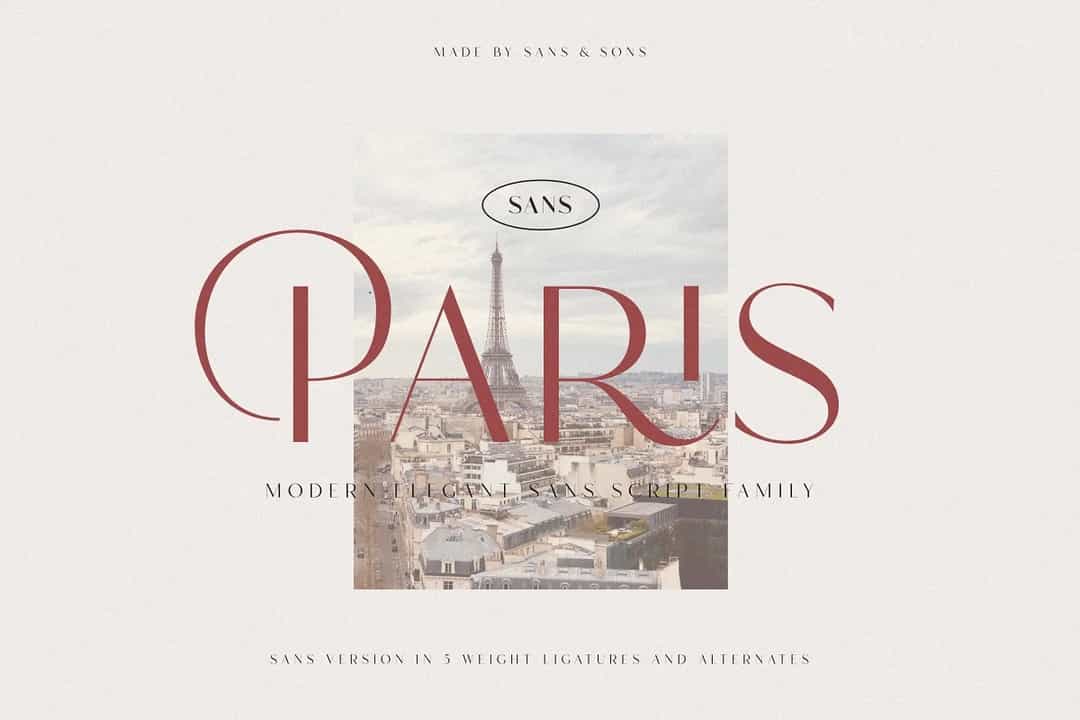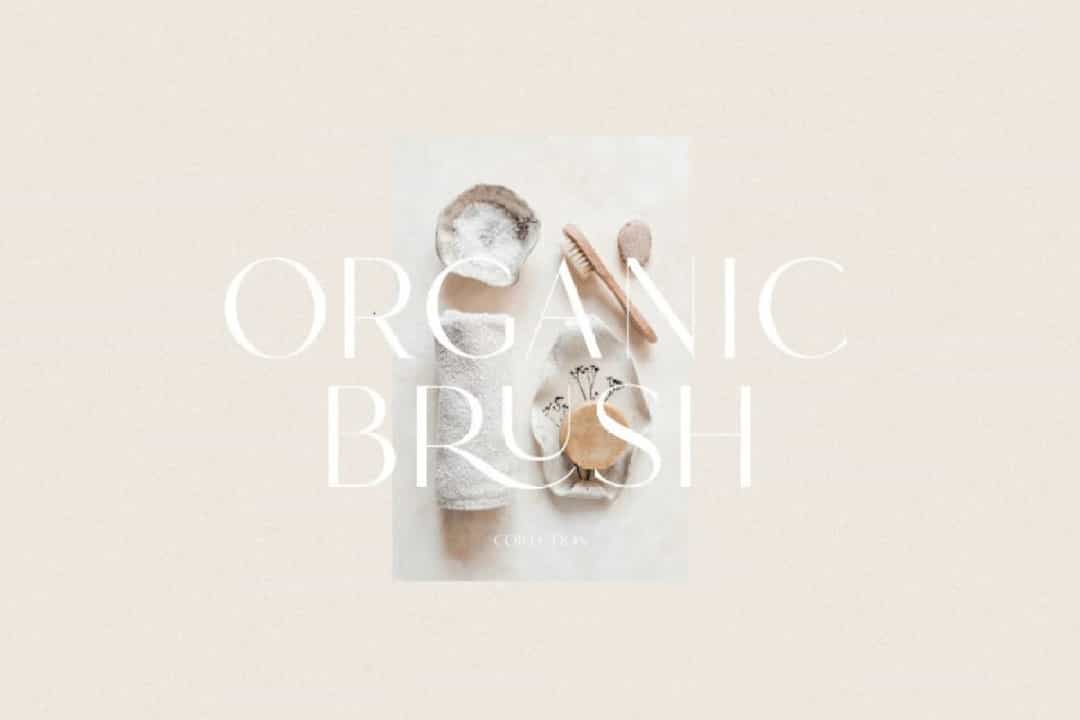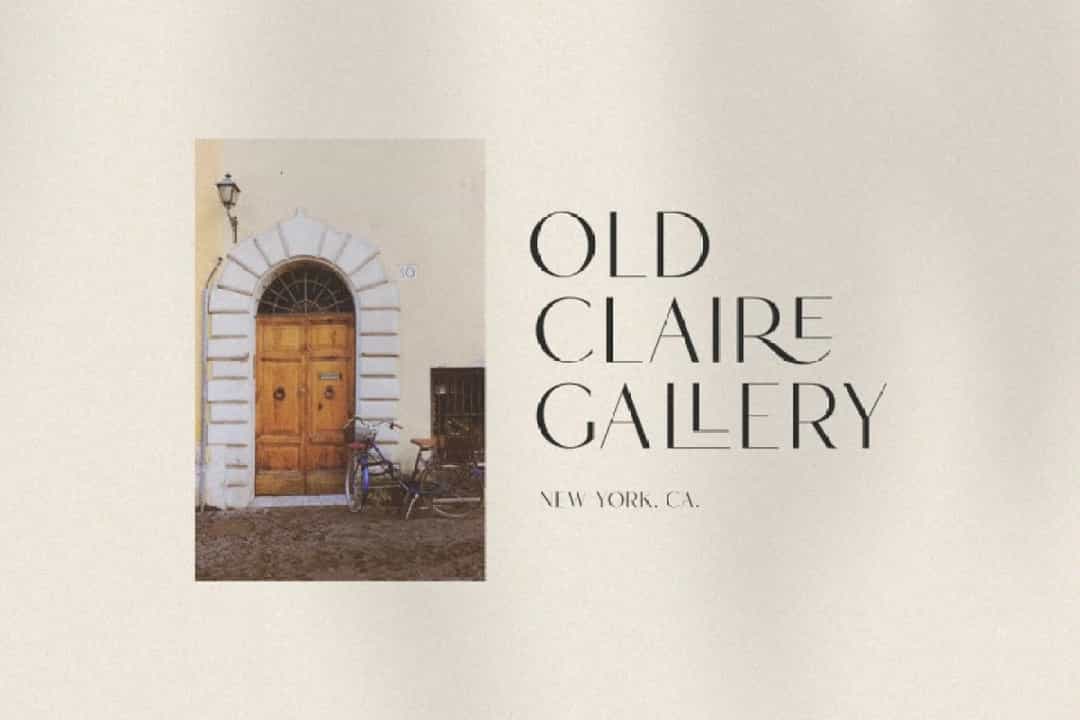
Hello Paris Sans Serif Font is a stunning blend of Modern Sans and Elegant Style, perfectly combining soft legibility and high contrast letterforms to produce premium logo designs, packaging for products, invitations, and masterhead designs.